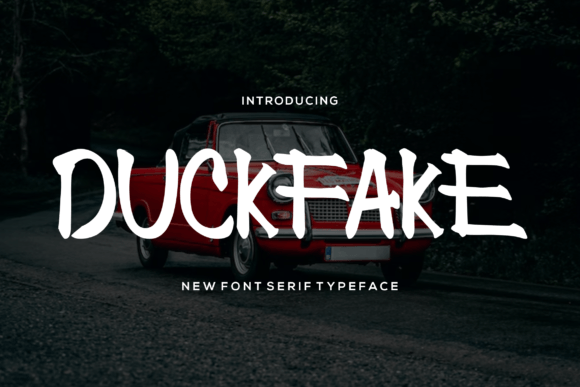
Embark on a typographic adventure with Duckface Font, a creation of prayoga_std, a visionary font artist. Duckface Font is not just a font; it's an experience, a gateway to a world of boundless creativity.
Immerse yourself in the captivating world of Duckface - the handwritten display font that breathes life into your designs. From personal projects to professional endeavors, Duckface Font is your trusted companion, transforming ordinary words into captivating expressions.
With Duckface Font, you'll discover a font that complements any topic, elevating your designs to new heights. Its playful charm adds a touch of whimsy, while its unwavering legibility ensures your message is always crystal clear.
Unleash your imagination and let Duckface Font guide you through a symphony of emotions. Its beautifully crafted characters dance across the page, captivating your audience with their charm and grace. Whether you're crafting logos, branding materials, or social media posts, Duckface Font is your secret weapon, turning every project into a masterpiece.
Step into a world where typography meets artistry. Duckface Font is more than just a collection of letters; it's an invitation to explore the infinite possibilities of visual communication. Its versatility knows no bounds, making it the perfect choice for designers of all levels.
With Duckface Font, you'll embark on a creative journey where every letter tells a story. Its unique handwritten style adds a personal touch to your designs, making them stand out from the crowd. Experience the joy of creating designs that resonate with your audience, designs that leave a lasting impression.
Duckface Font is a font that speaks to your soul, a font that ignites your passion for design. Embrace the Duckface experience and unlock the true potential of your creativity.